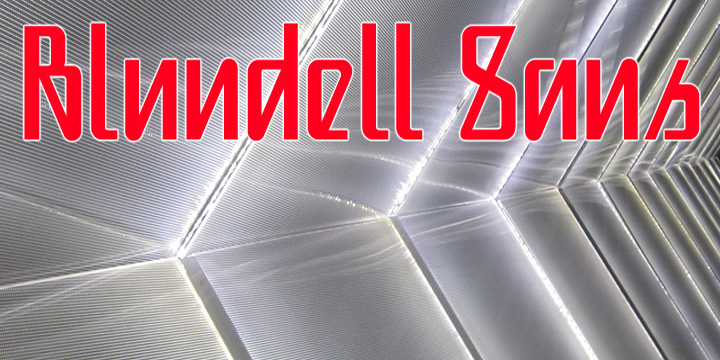
Blundell Sans
from K-Type
Designed when: 2009
Contained in Category: Script
Design owned by: K-Type
Blundell Sans
Blundell Sans is a type-hybrid that combines the precision and power of a sans serif with the elegance and humanism of a script. A resolutely upright font with a strong diagonal thrust.